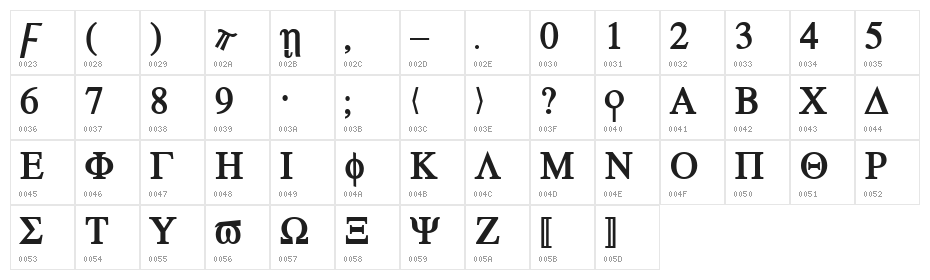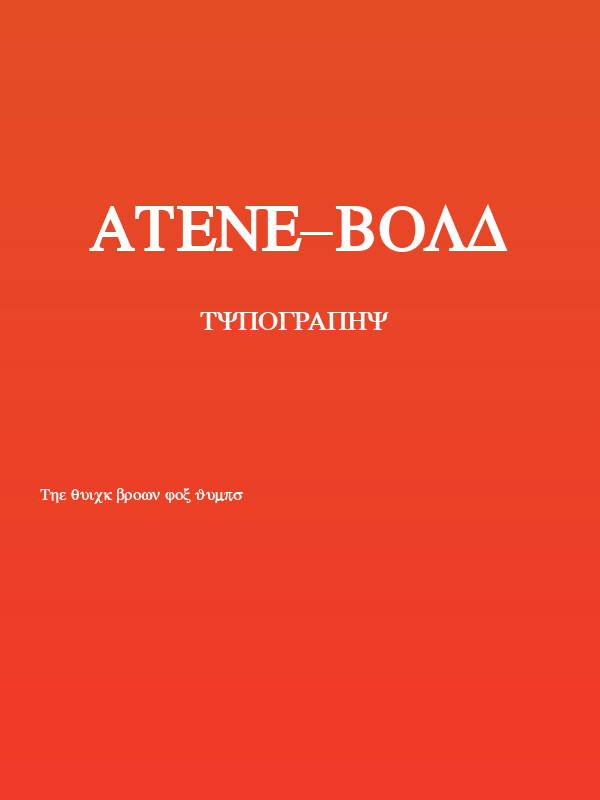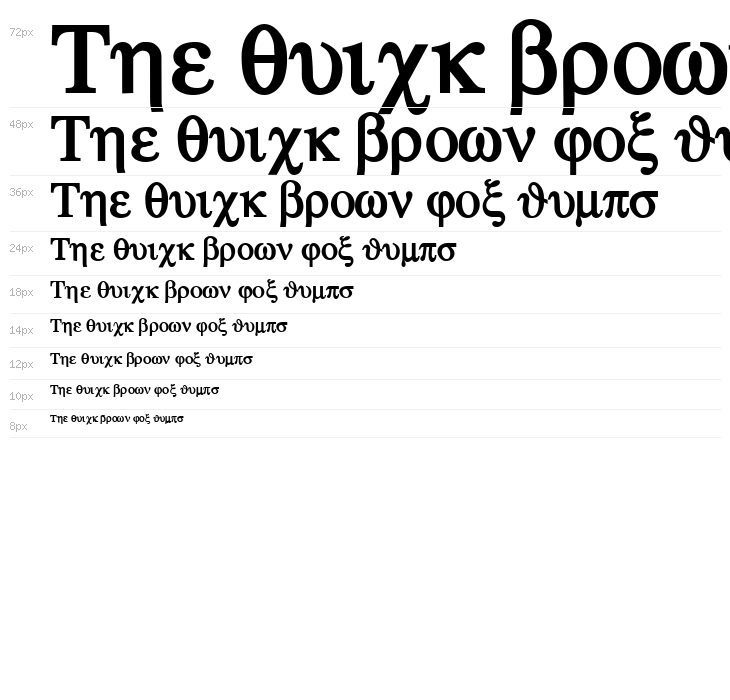
Atene-Bold Font
Atene-Bold Description
This font features a bold and classic serif style, characterized by its strong, thick strokes and traditional letterforms. The uppercase letters exhibit a commanding presence with their pronounced serifs and balanced proportions, while the lowercase letters maintain a harmonious flow with slightly rounded edges. The numerals are consistent with the overall boldness, ensuring readability and impact. Special characters are elegantly integrated, maintaining the font's cohesive aesthetic. This typeface is designed to convey a sense of authority and timelessness, making it suitable for a variety of formal and professional applications.
| Proposed Projects | Ideal for projects requiring a formal and authoritative tone, such as book covers, academic publications, corporate branding, and editorial design. |